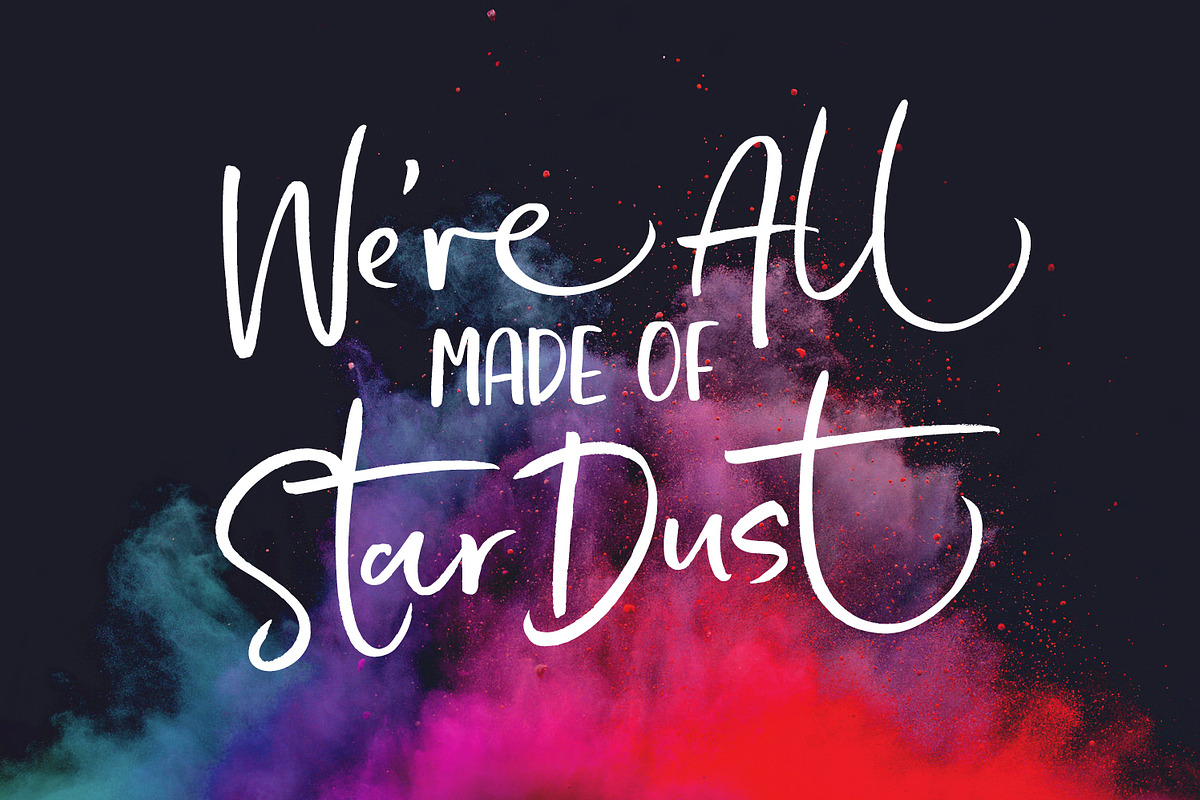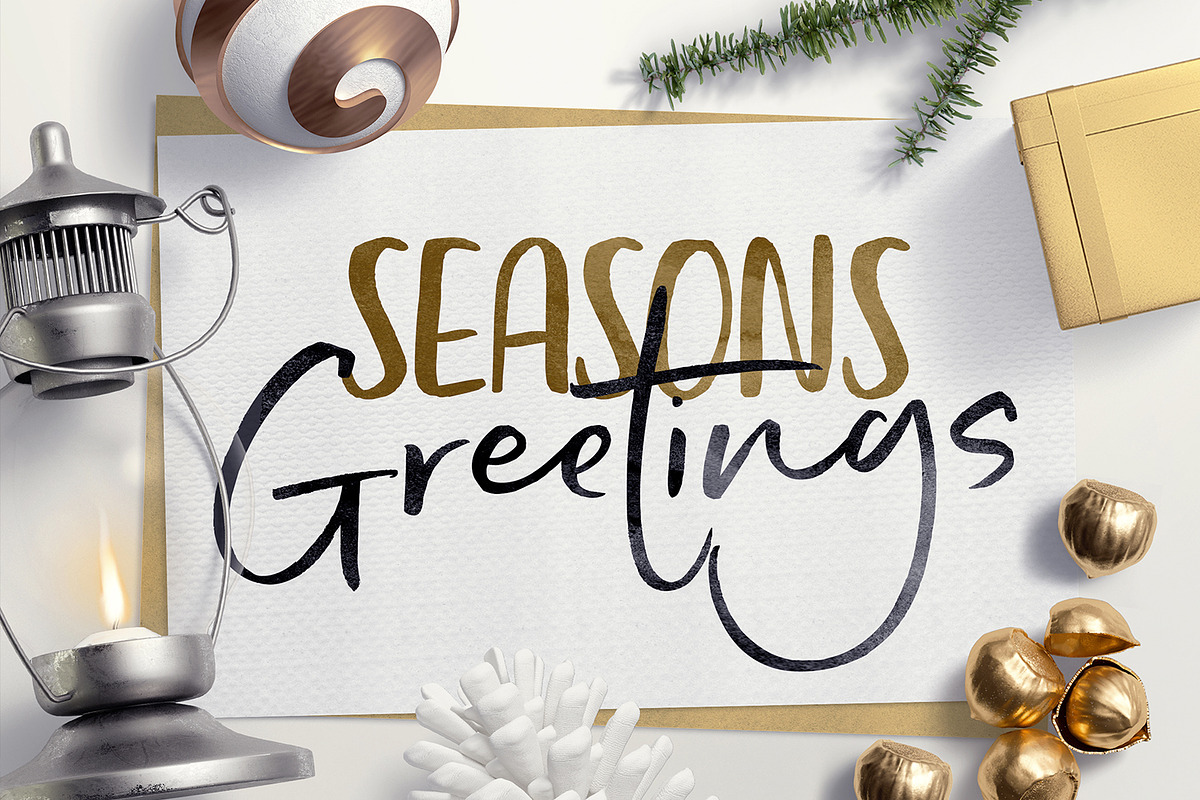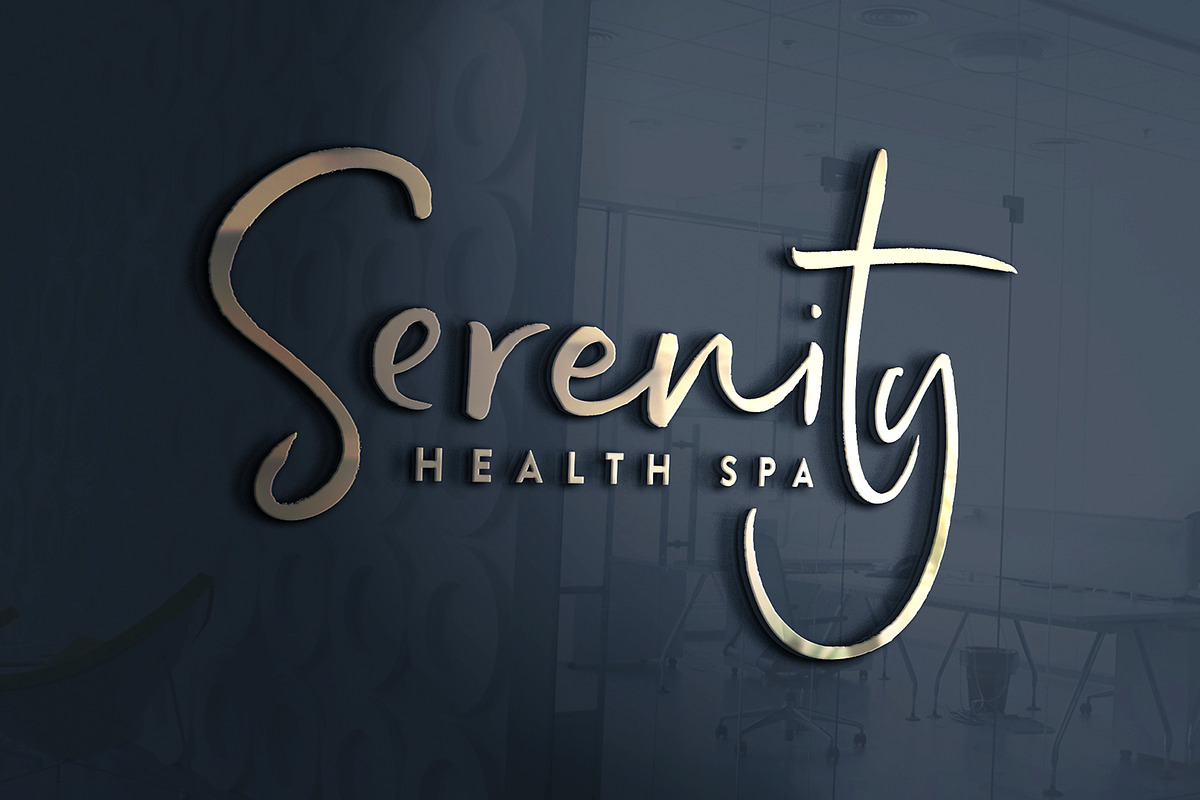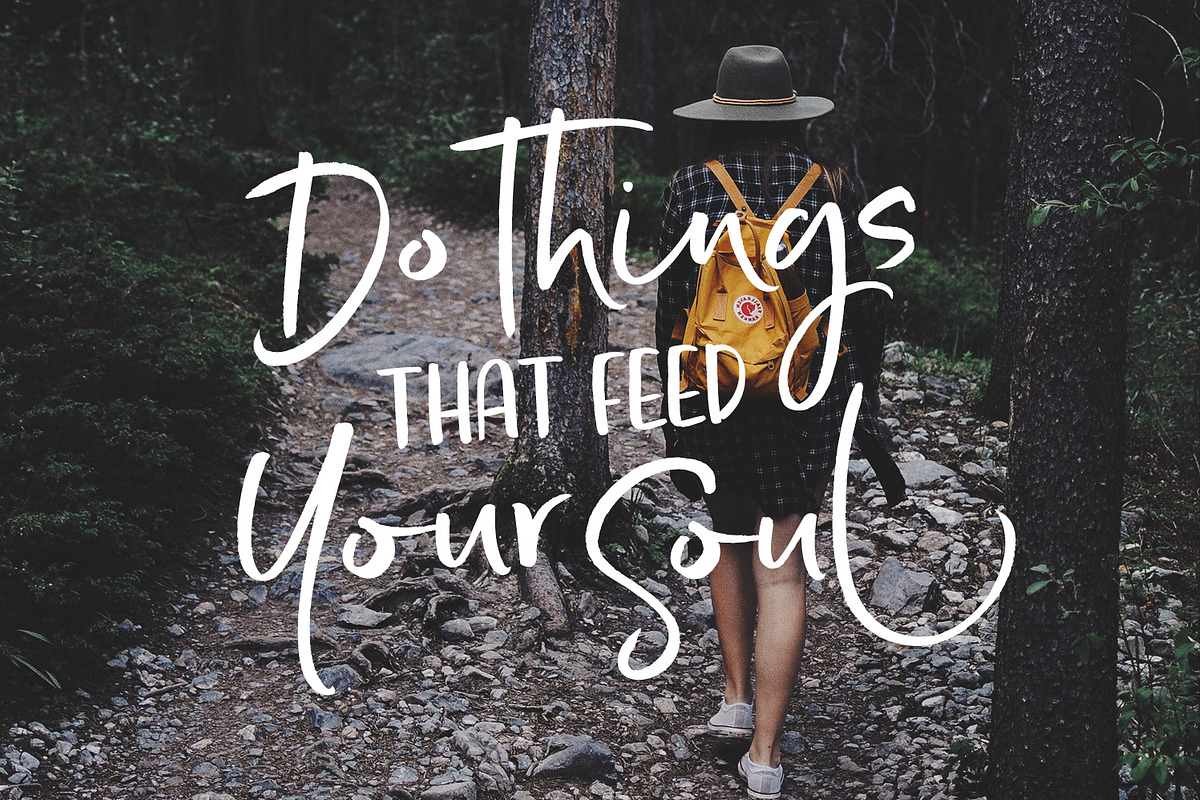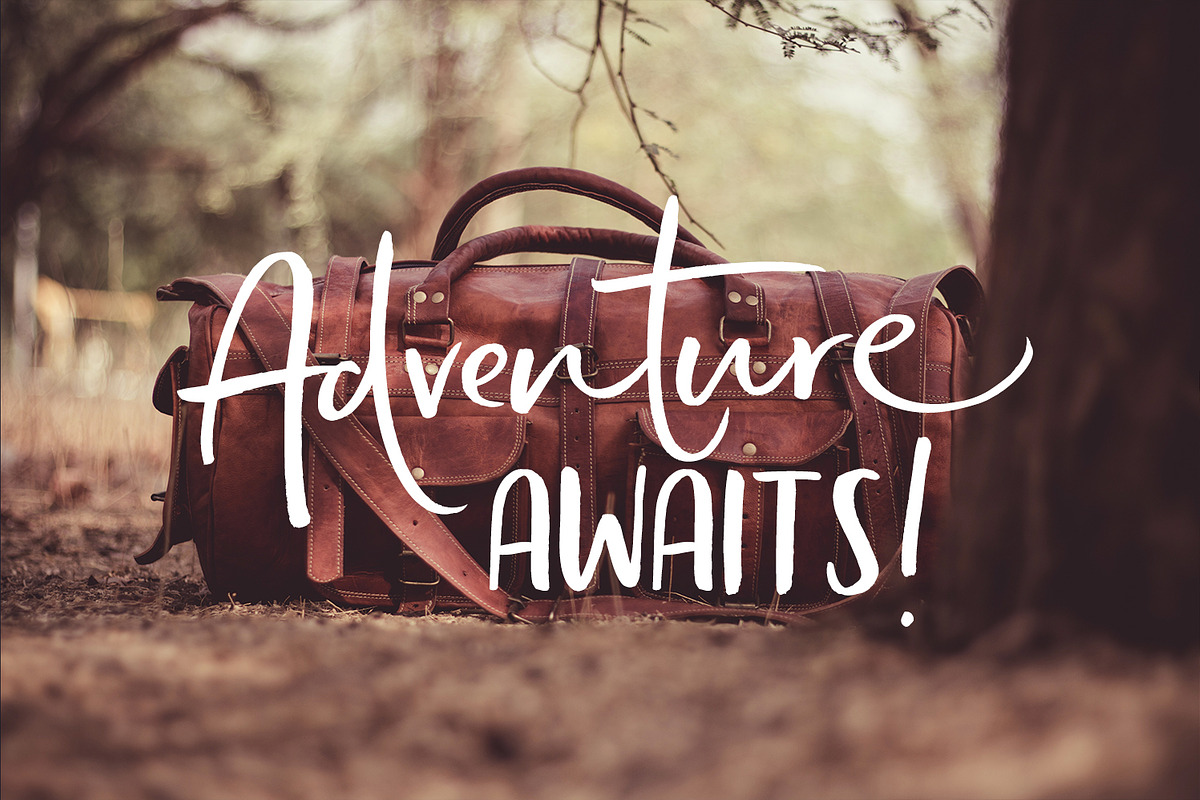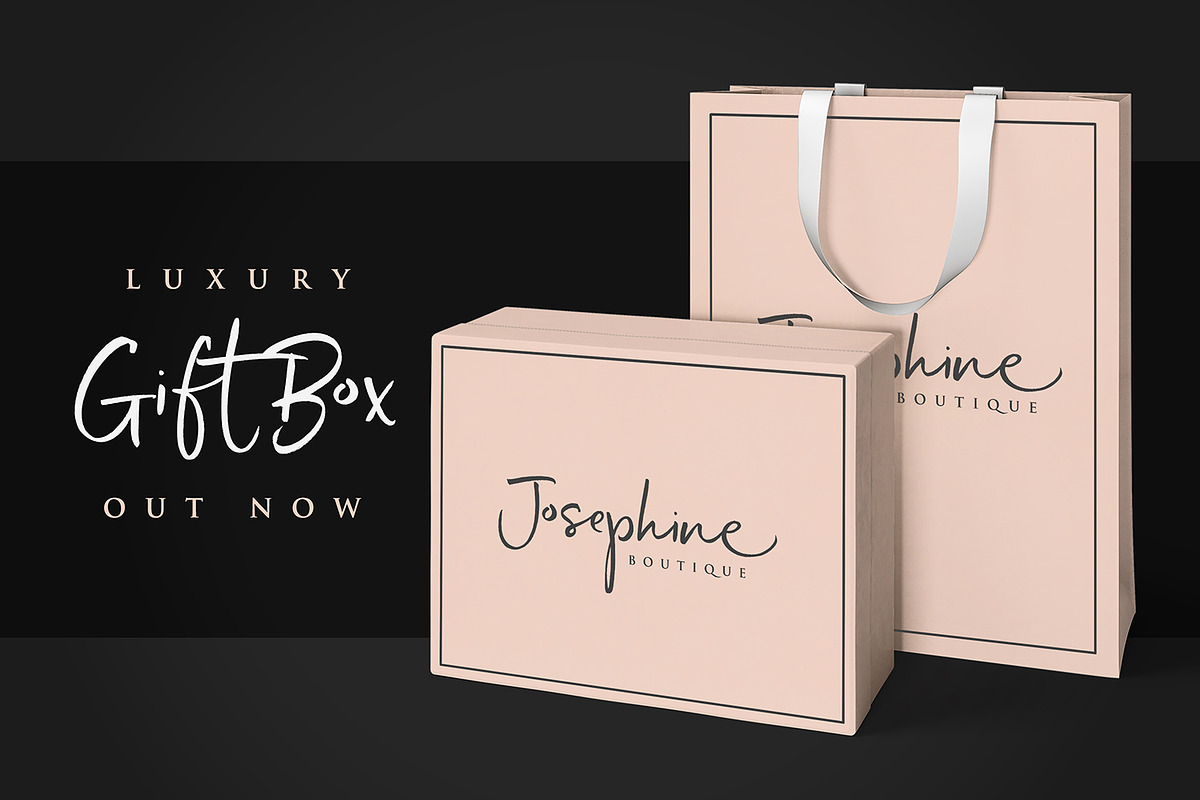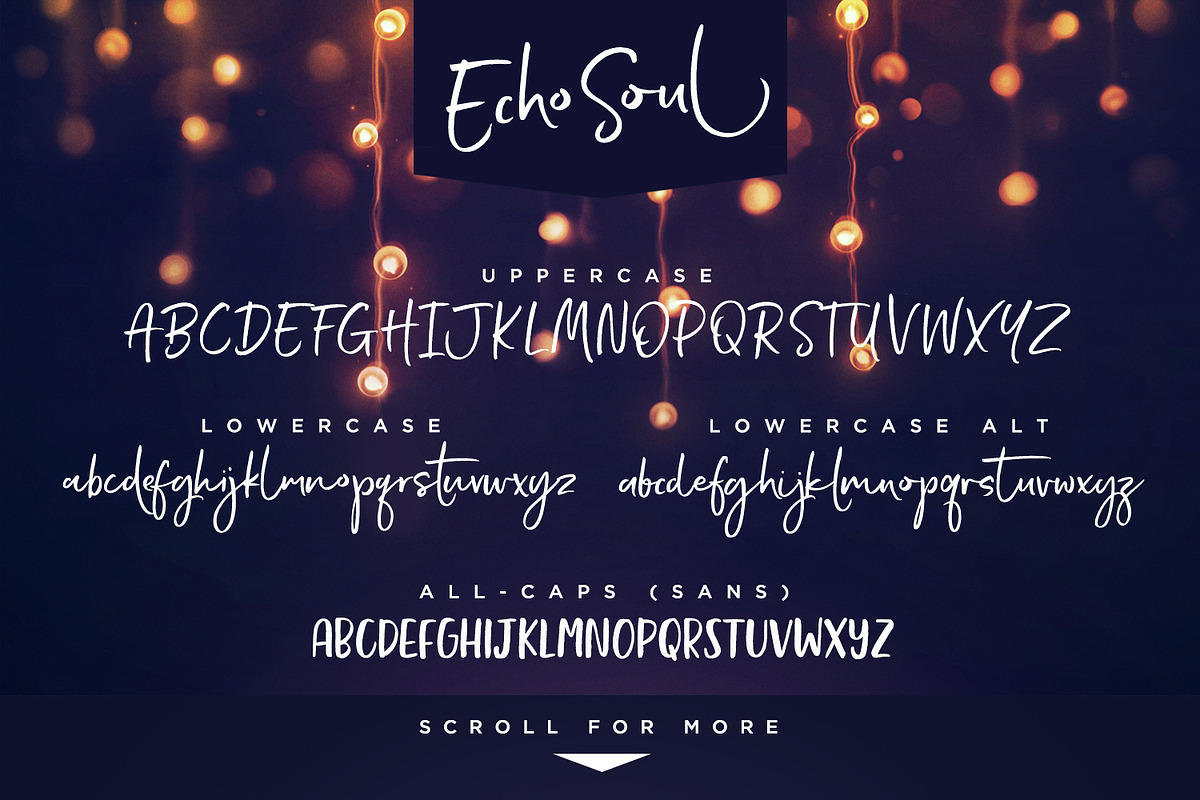
Echo Soul Font Duo
Echo Soul Font Duo by Sam Parrett is a font selected for branding, posters, packaging, typography.
- Also includes numerals and a large range of punctuation.
- Echo Soul • A handwritten script font containing upper & lowercase characters, numerals and a large range of punctuation.
- Echo Soul Alt • This is a second version of Echo Soul, with a completely new set of lowercase characters.
- Echo Soul Sans • An all-caps font containing uppercase-only characters, perfect for supporting text to compliment the Echo Soul Script font.
- Also includes numerals and a large range of punctuation.
- Fonts include multilingual support.
- Special Letters • Are also available for several lowercase characters - these have elongated tails and look great when placed at the end of
Echo Soul Font Duo by Sam Parrett fits naturally into Branding, posters, packaging, typography.